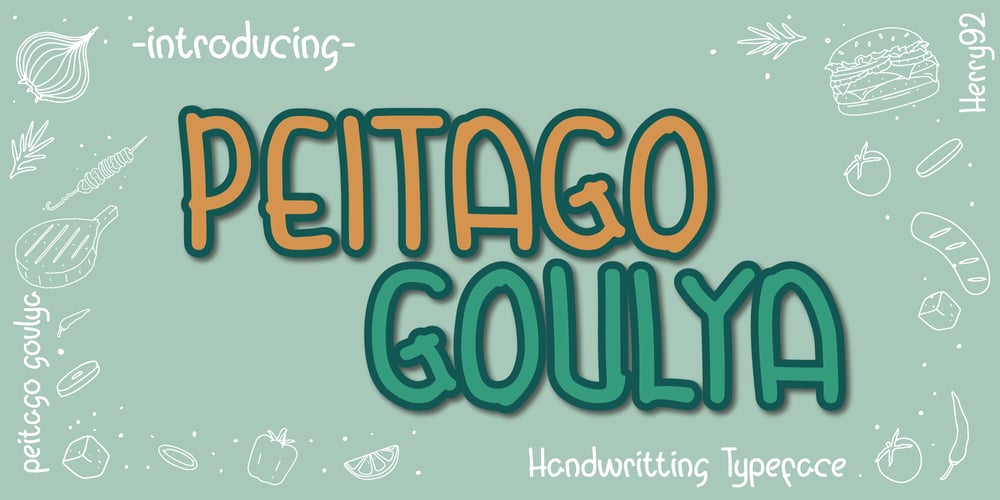
Peitago Goulya Font Family was designed by Herry Herry and published by Herry92. Peitago Goulya contains 1 styles and family package options. I like the letters on the Peitago goulya because each letter is curved and rounded at the edges, it looks unique and has characteristics.Peitago goulya is handwritten, intentionally made with indentations. This font looks very pleasant.. !